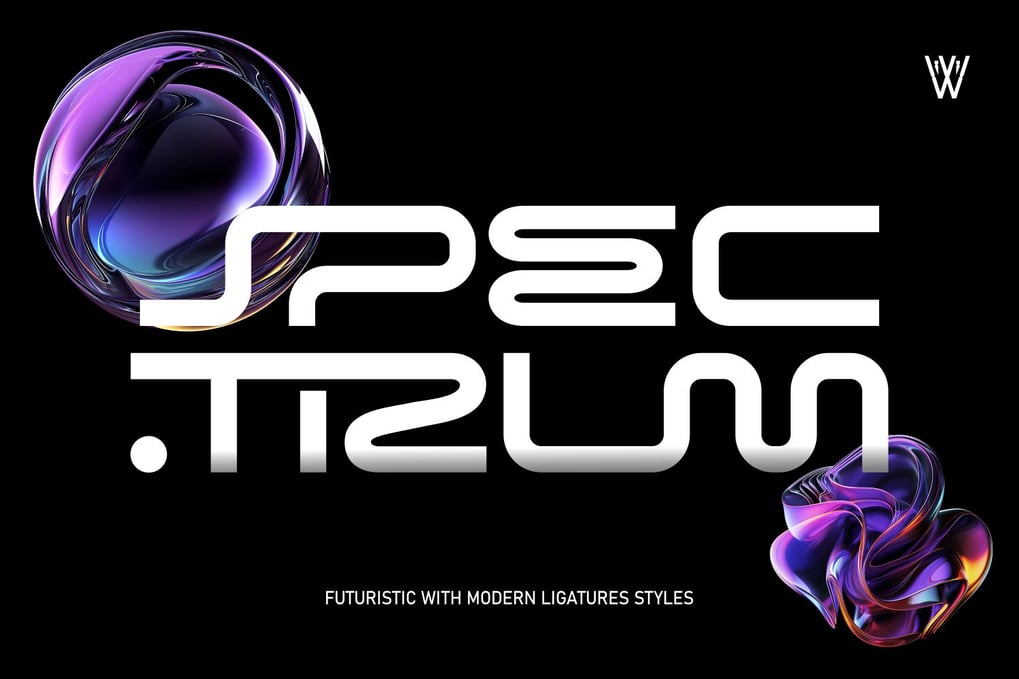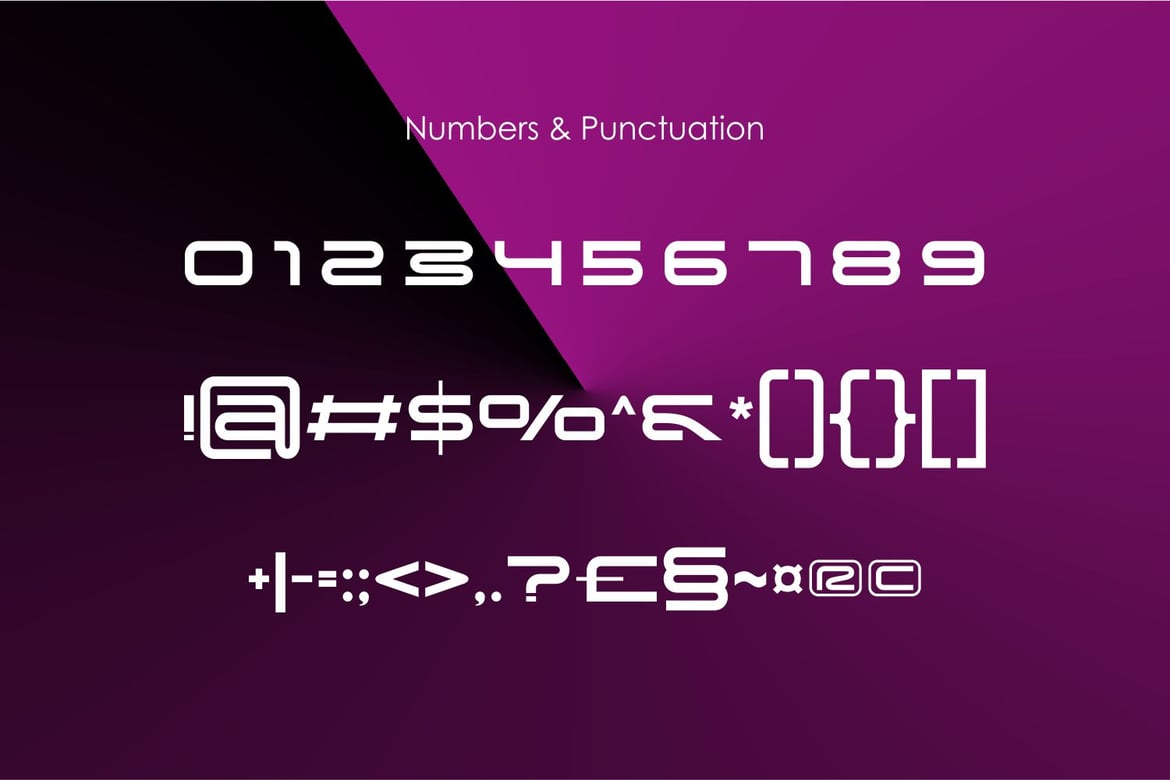
Spectrum Modern Futuristic Expanded Sporty Font
* Bold & Eye-Catching: Its expanded, all-caps design ensures your text will stand out, making it a great choice for high-visibility applications.
* Modern Versatility: Spectrum works across a wide range of projects, from sports branding to futuristic tech designs, giving you a flexible tool for many creative needs.
* High-Impact Aesthetic: Ideal for creating strong visual statements that convey innovation, energy, and forward-thinking design.